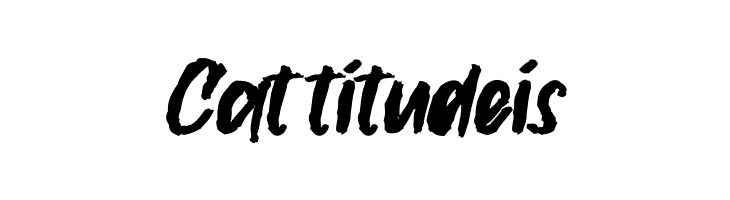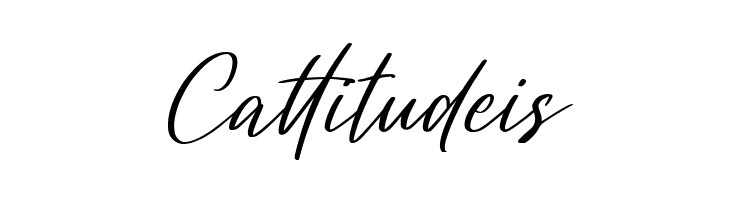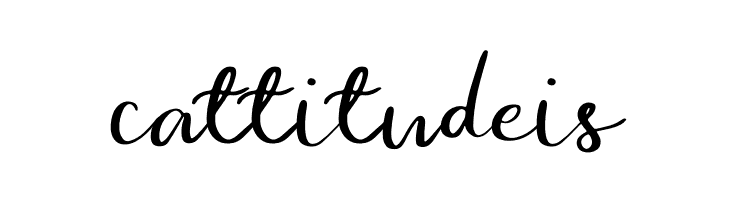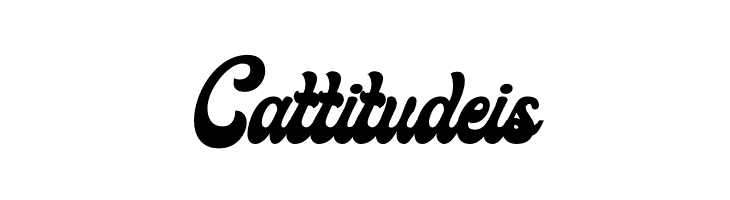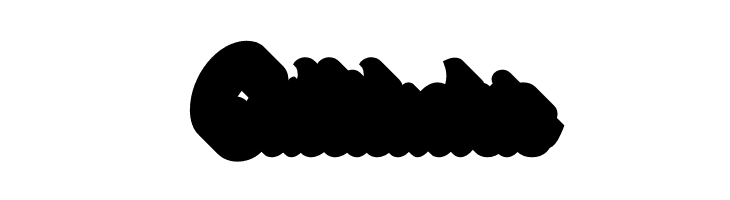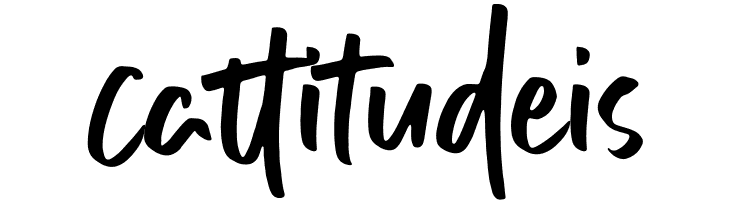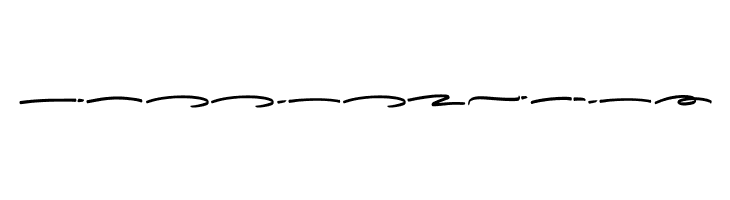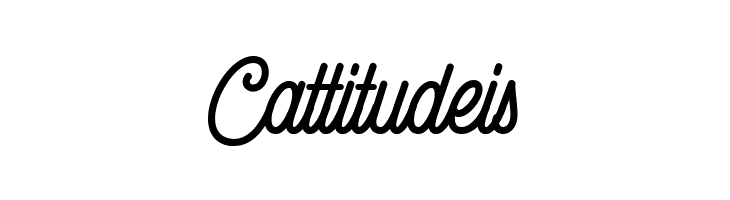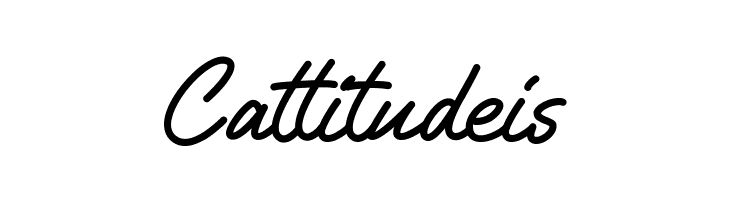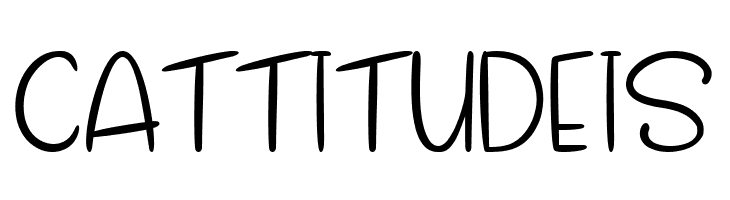
A charming and elegant handwritten script font with fluid, cursive letterforms.
A cursive, handwritten font with elegant, flowing strokes and medium contrast.
A dynamic and flowing script font with elegant, slightly slanted letterforms.
A dynamic and flowing script font with elegant, slanted letterforms.
A bold, expressive handwritten font with fluid strokes and a modern, playful style.
A whimsical, decorative font with elegant swashes and flowing lines.
A cursive, handwritten-style font with smooth, connected strokes and a slight right slant.
A fluid and elegant script font with connected letterforms and a handwritten style.
A dynamic and elegant script font with fluid, connected letterforms.
An elegant, flowing script font with intricate, looping letterforms.
A lively and expressive script font with flowing, cursive letterforms and medium contrast.
A playful, casual handwritten font with smooth, rounded edges and consistent strokes.
An elegant, flowing script font with ornate, cursive letterforms.
A stylish and elegant script typeface with flowing, interconnected letters.
A bold, playful font with rounded edges and a cohesive design.
A bold, energetic script font with a handwritten feel.
A bold, rough, hand-painted style font with thick strokes and dynamic energy.
A bold, textured brush script font with an energetic, hand-painted look.
A graceful script font with fluid, cursive strokes and elegant curves.
A lively, cursive handwritten font with fluid strokes.
A playful, hand-drawn font with a bold, sketch-like texture.
A bold, modern font with uniform stroke thickness and clear readability.
A bold, outlined italic font with a modern and dynamic style.
A bold, outlined font with a modern and clean aesthetic.
A bold, italic font with strong strokes and a dynamic presence.
A bold, modern font with a vintage touch, featuring strong, consistent characters.
A bold, graffiti-inspired font with sharp, angular strokes.
A bold, italicized font with a modern, dynamic style and sharp angles.
A flowing, elegant script font with a handwritten style.
A bold, cursive font with a playful and energetic style.
A bold, playful font with a strong shadow effect and rounded characters.
A bold, geometric font with a modern and robust style.
A playful and dynamic script font with smooth, flowing lines.